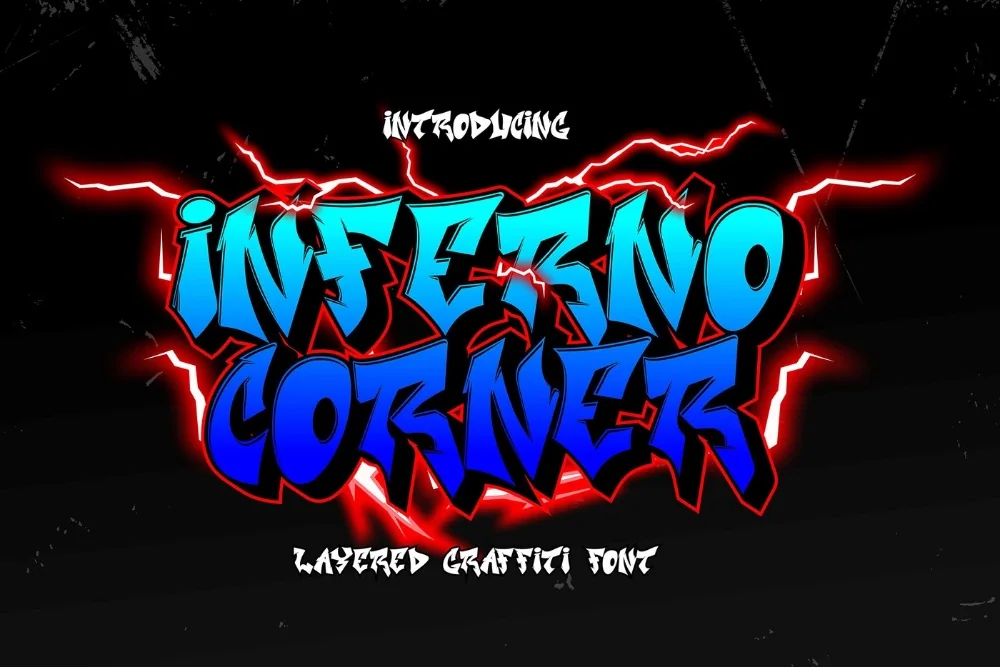
Corner Flame Graffiti Font
Artwork by Inferno Corner, the original creator of this set.
Among the flame graffiti font options in this library, this alphabet is the one worth trying first. Flame shapes licking off the corners of every letter. Hot in the most literal sense.
Tapered points rise from the top-right of each character while the letter bodies stay solid and readable underneath. Two-colour treatments separate the flames from the base beautifully.
Fits motorsport graphics, hot sauce and BBQ packaging, band merch, and arcade-style titles.